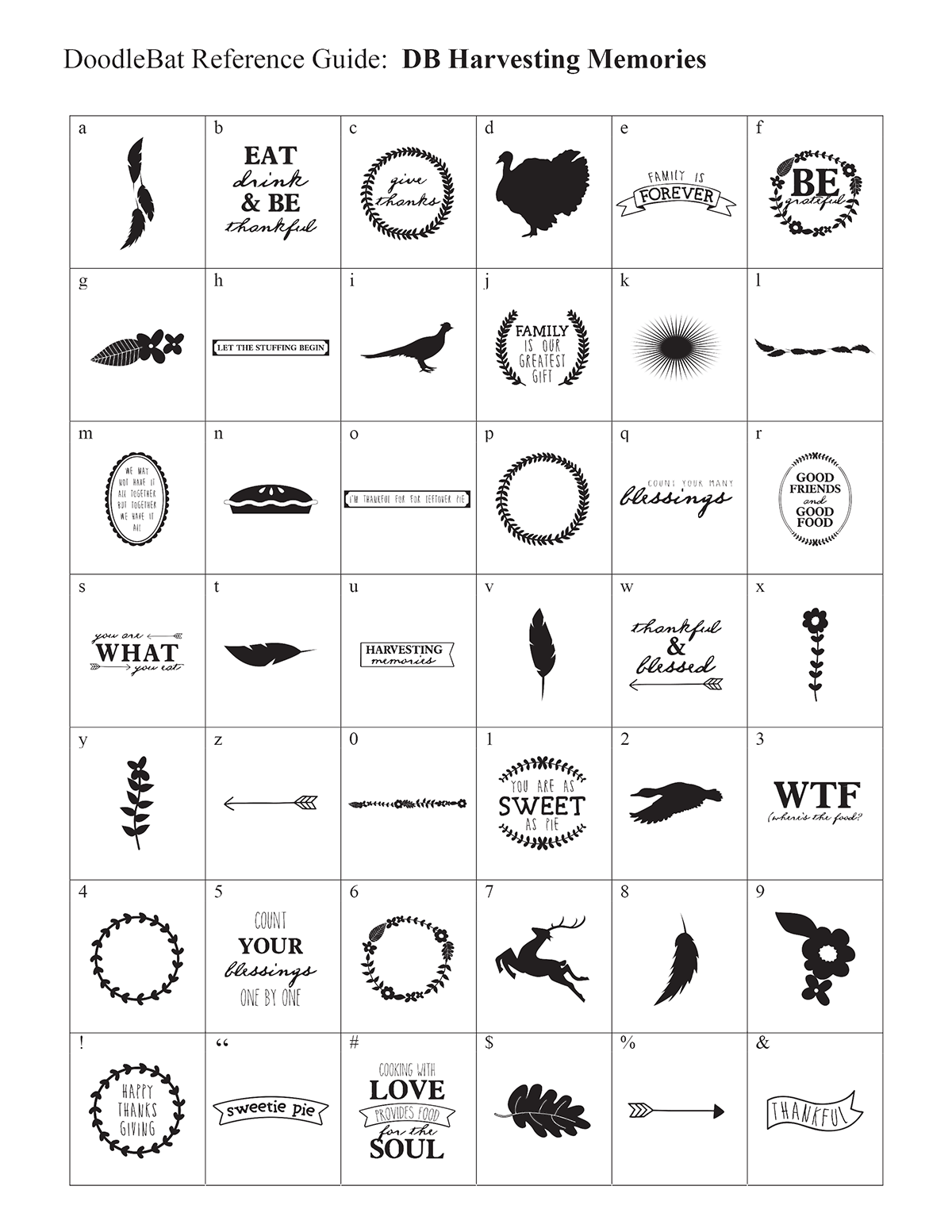
A doodlebat is a picture font. Rather than letters, each character of the font is an image. Doodlebats come with a PDF reference sheet so you can see which image corresponds with each keystroke. Shop for doodlebats.